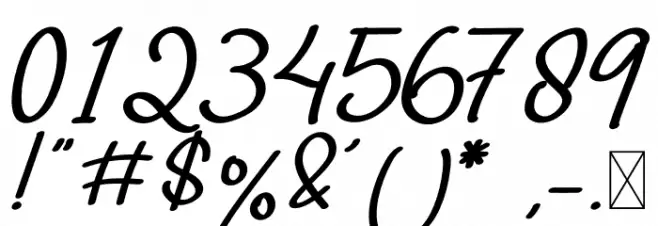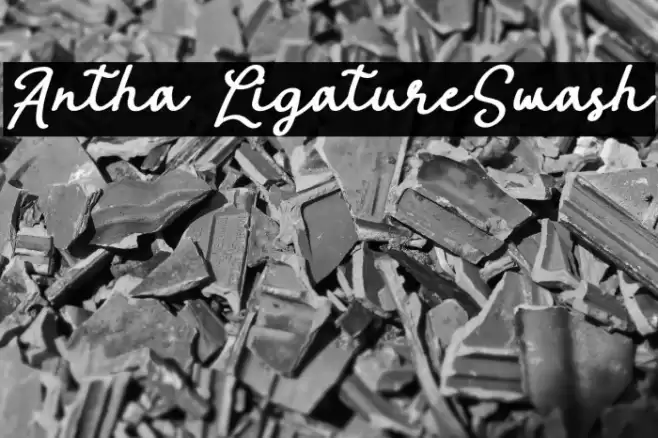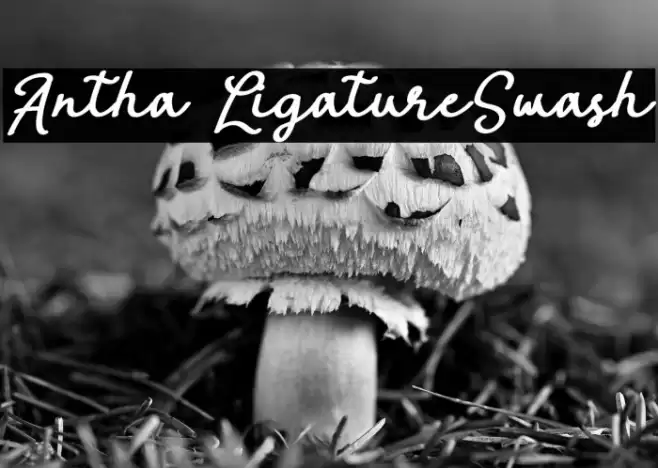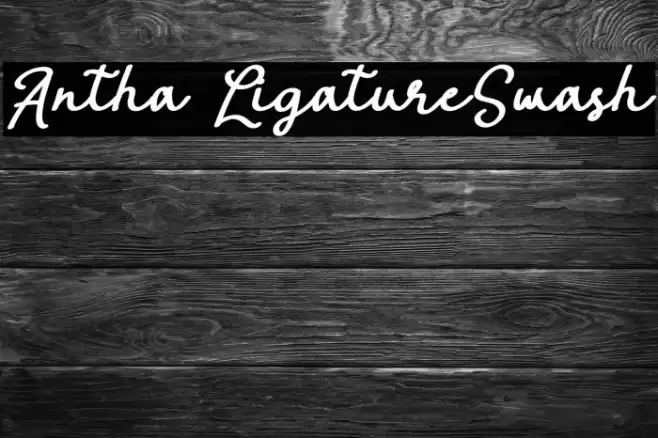
Antha LigatureSwash Font
Antha LigatureSwash Description
This font features a flowing, cursive style with elegant swashes and ligatures that give it a handwritten appearance. The uppercase letters are slightly more formal, with smooth curves and a consistent stroke width, while the lowercase letters exhibit a more playful and dynamic flow. The numerals maintain the same cursive style, ensuring consistency across all characters. Special characters are designed to complement the overall aesthetic, making this font suitable for creative and decorative applications.
| Use Case | Logos, Invitations, Decorative text |
| Proposed Projects | Ideal for wedding invitations, greeting cards, logos, and branding materials that require a personal touch. |